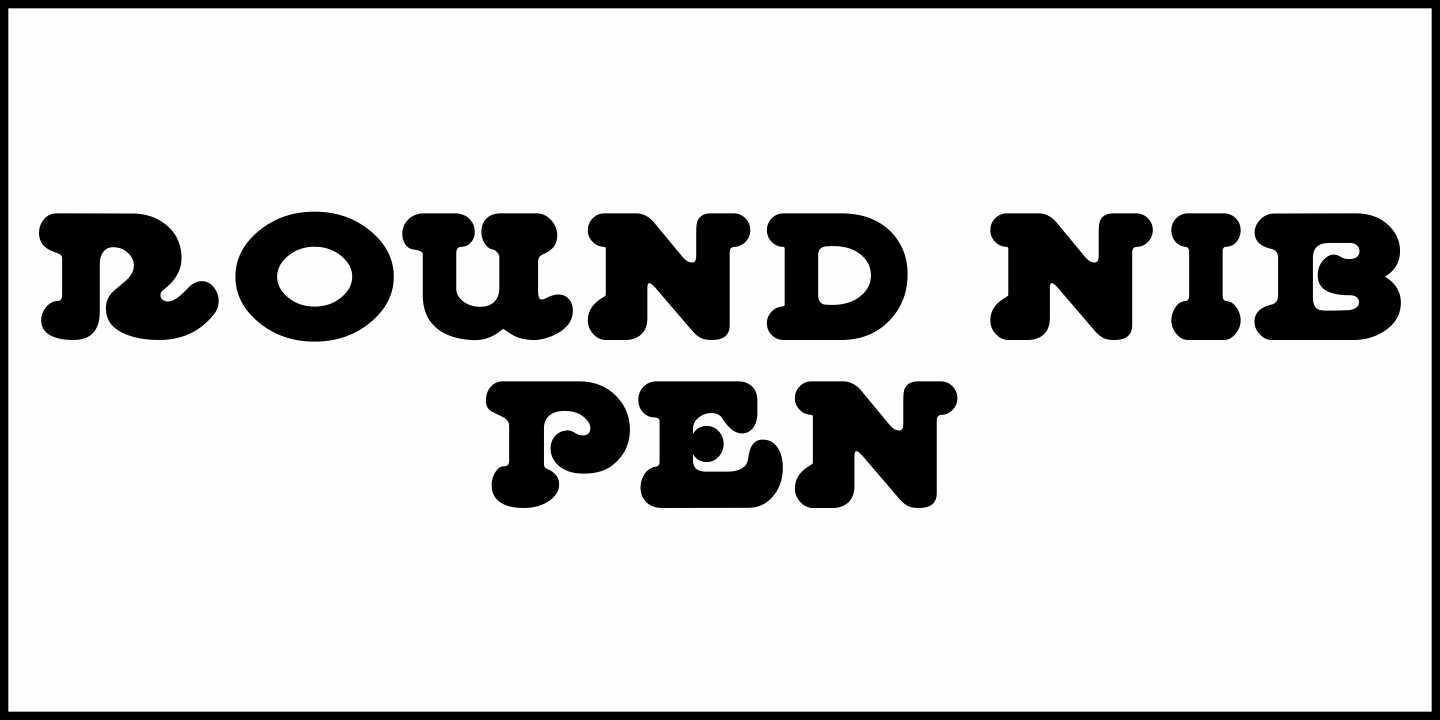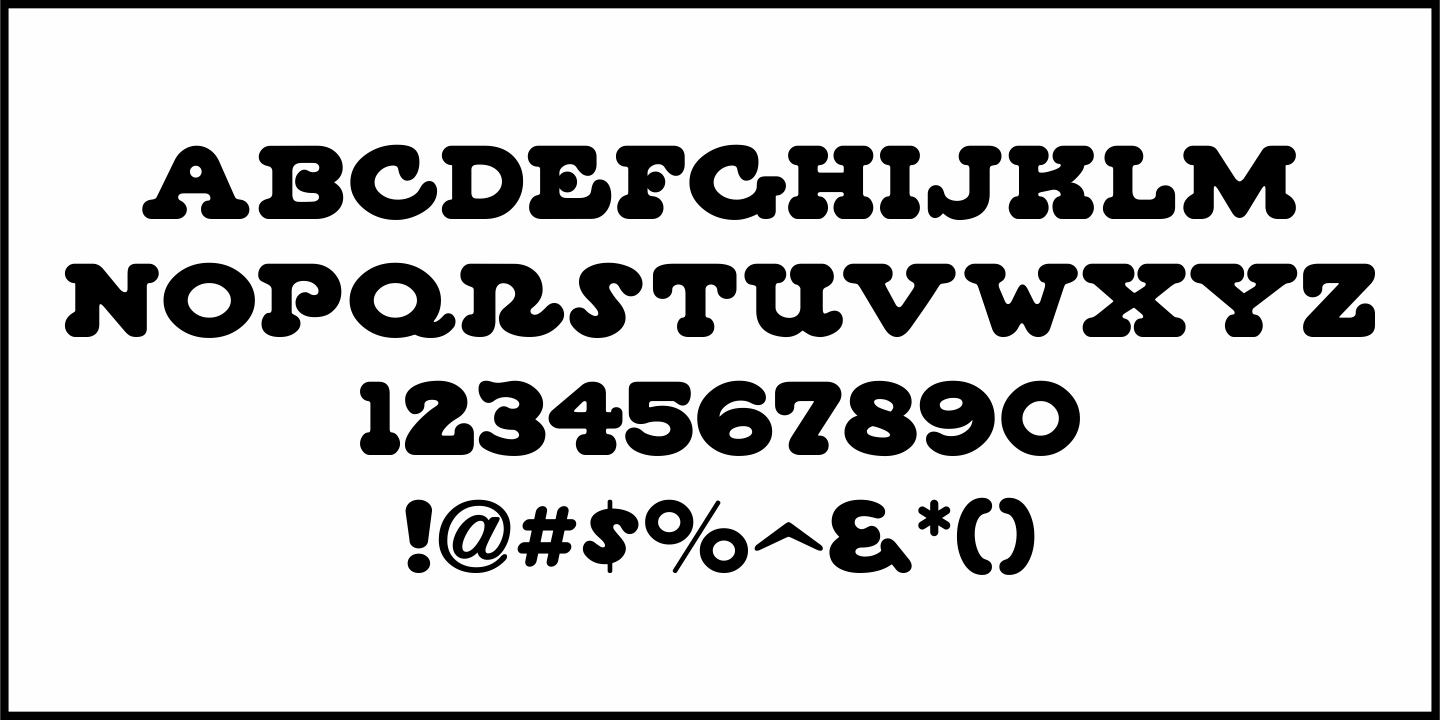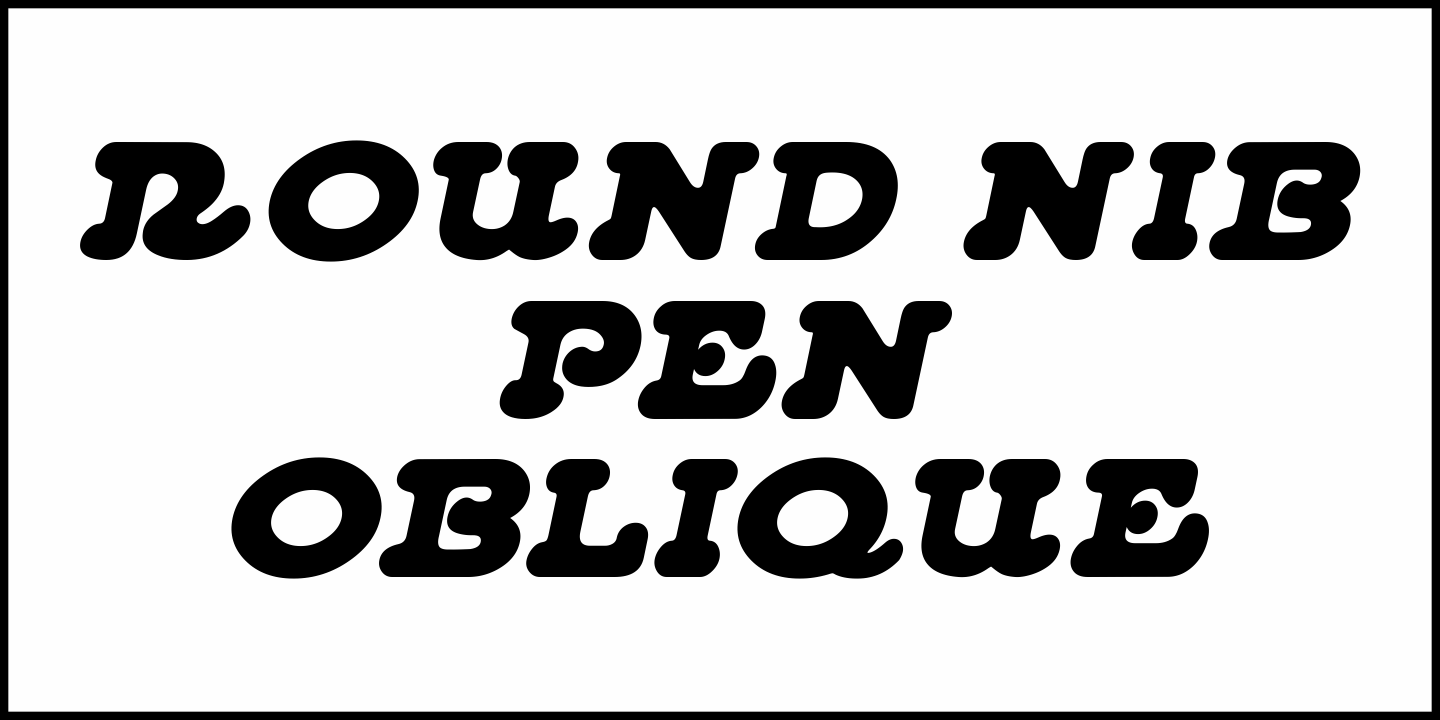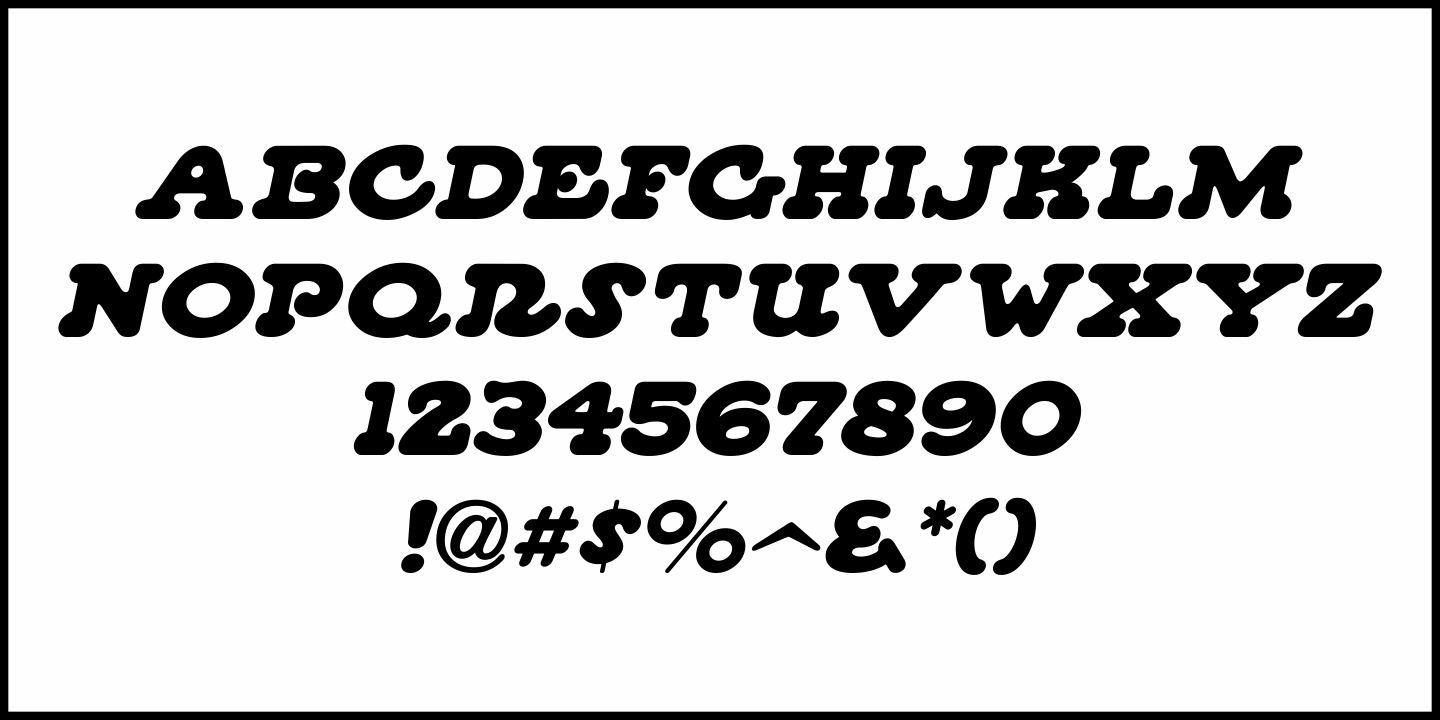
Round Nib Pen
Various ads for Universal Pictures within the Jan.-Feb. 1920 issues of Motion Picture News had promotional text hand lettered in a big, ultra bold serif typeface made with a round nib pen.
These casual and free form characters with Art Nouveau influences were redrawn into the digital typeface Round Nib Pen JNL, and are available in both regular and oblique versions.
Round Nib Pen JNL Regular by Jeff Levine Fonts